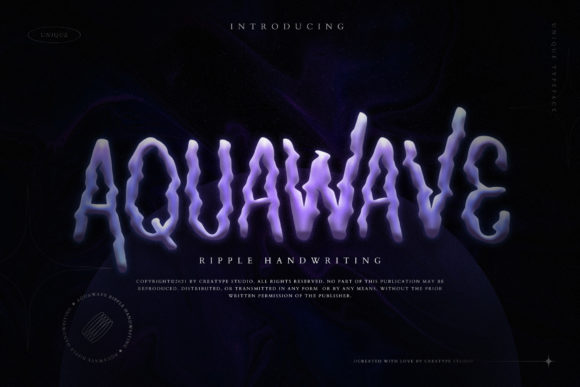
Dive into the depths of creativity with Aquawave, a ripple display font, crafted to paint your designs with a unique brushstroke of elegance and charm!
Unleash your imagination and set your designs apart with Aquawave's diverse and captivating character set. Each letter dances across the screen like a ripple in a tranquil pond, adding a touch of fluidity and grace to your creations.
Whether you're a seasoned designer or just starting your artistic journey, Aquawave will elevate your designs to new heights, leaving a lasting impression on your audience.
Transport yourself to a world of beauty and sophistication with Aquawave, where every word you type becomes a visual masterpiece.
With Aquawave, the possibilities are endless. Let your creativity flow and embark on a typographic adventure that will leave you breathless.
Say goodbye to ordinary fonts and embrace the extraordinary with Aquawave. Its unique style is sure to make your designs stand out from the crowd and leave a lasting impression.
Join the wave of creativity and let Aquawave guide you towards typographic excellence. Its PUA encoding makes it incredibly easy to access all the glyphs and swashes, giving you the freedom to explore your artistic vision without limits.
Dive into the depths of beauty and let Aquawave transform your designs into captivating works of art.